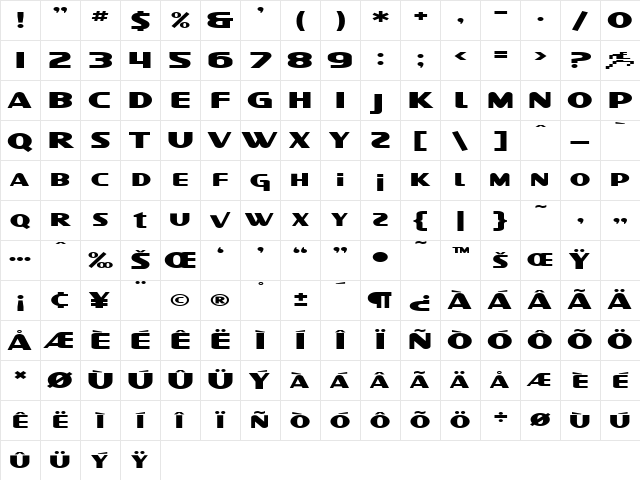
SF Intellivised Extended Regular
SF Intellivised Extended Family
Design Context for SF Intellivised Extended
SF Intellivised Extended is a composed and adaptable typeface that performs quietly and consistently across a wide range of design contexts.